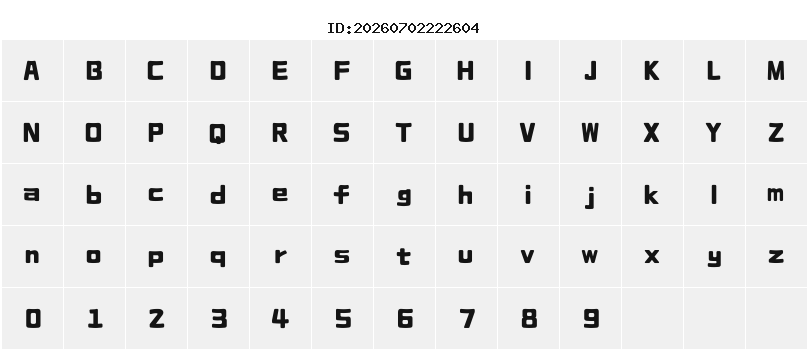
• Font Name: 244-上首墩墩体
• Font ID: 244-SSDunDunTi:Version 4.00
• Full Font Name: 244-上首墩墩体
• Version: Version 4.00 June 29, 2023
• PostScript Name: 244-SSDunDunTi
• Character Count: 7567
About 244-上首墩墩体.ttf
244-上首墩墩体.ttf is a modern, elegant sans-serif font designed for ultimate readability and visual harmony. Perfect for branding, headlines, web design, and print materials.